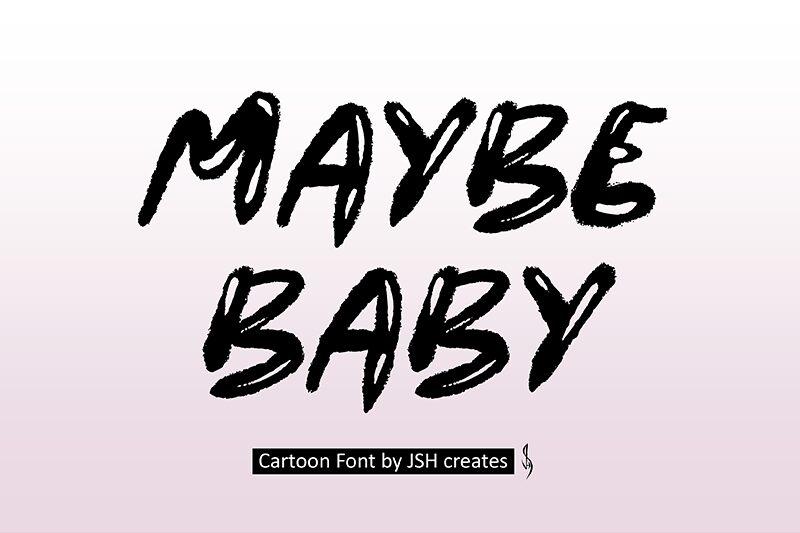
Maybe Baby font was designed by JSH creates. It’s an expressive, dynamic display font with a cartoon style and features high contrast strokes. It's meant to take your designs to the next level with casual, energetic shapes and bold brush script details.
Maybe Baby is ideal for playful projects like children's books, comic strip dialogue, magazine headlines, social media announcements, or wedding invitations - any space where you need a hint of vibrant personality! It can also be great for poster designs, vintage logos or practically anywhere you want to infer friendly hand-lettering.